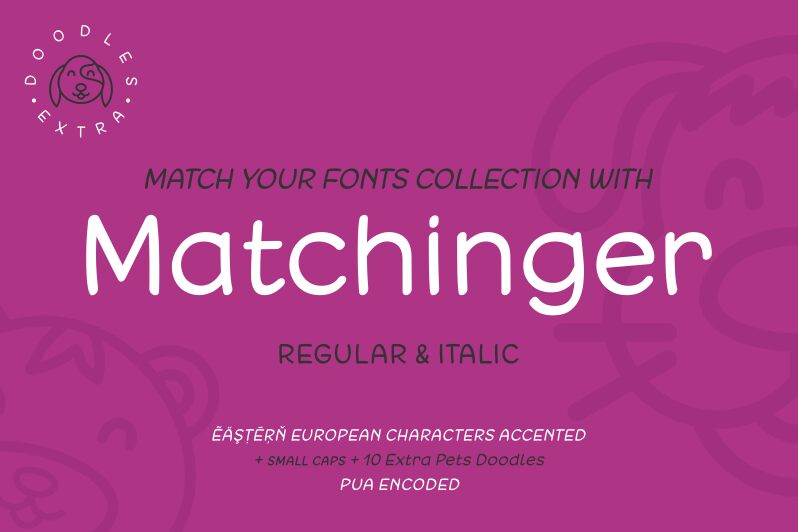
Matchinger Italic
Matchinger Italic is a captivating handwritten font that exudes a sense of effortless elegance. Designed by Situjuh Nazara, this font boasts a graceful, flowing style that evokes the organic strokes of a skilled calligrapher. With its distinctive character shapes and natural variations, Matchinger Italic lends a touch of authenticity and personality to any design project. Its versatile nature makes it an ideal choice for branding, editorial layouts, and even personalized stationery, where it can elevate the visual narrative with a touch of artisanal charm.
The font's fluid lines and subtle irregularities create a harmonious balance between structure and spontaneity, lending a sense of warmth and character to the overall aesthetic. Matchinger Italic's versatility allows it to seamlessly transition between formal and casual applications, making it a valuable asset for designers seeking to infuse their work with a refined, handcrafted touch.